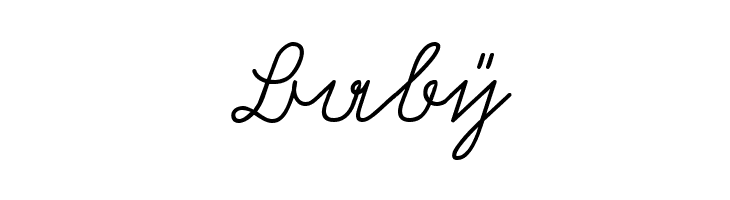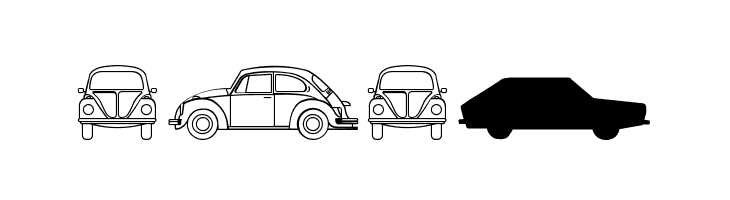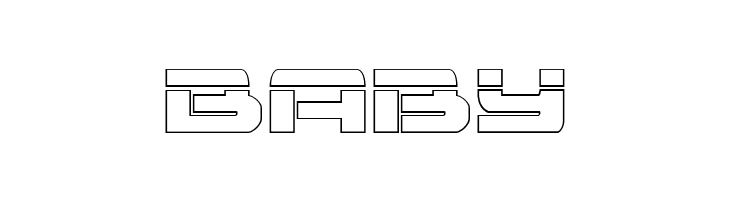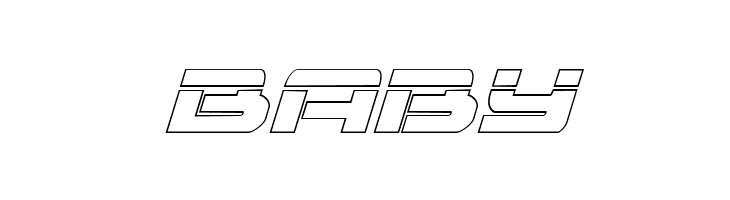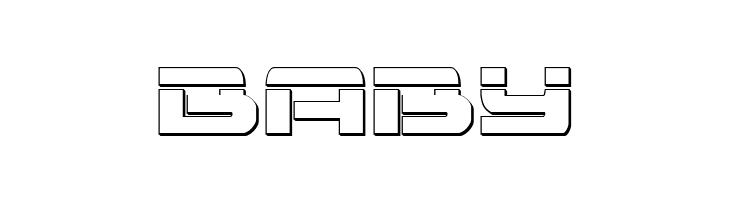
• Volk Redis Bold
A bold, expressive script font with flowing, interconnected letters.
• Volk Redis Italic
A flowing and elegant script font with interconnected cursive letterforms.
• Volk Redis Italic
A flowing, cursive script with a handwritten, italicized style.
• Volkswagen
A collection of Volkswagen vehicle silhouettes representing different models.
• Voluptate_demo
An elegant, flowing script font with intricate, interconnected letterforms.
• Volutes
An elegant script font with intricate swirls and flourishes.
• Vorpal 3D Italic
A futuristic, 3D italic font with outlined, geometric characters.
• Vorpal 3D Regular
A futuristic, geometric font with a 3D, outlined design.
• Vorpal Academy Italic
A bold, italic, futuristic font with geometric shapes and a double-layered outline.
• Vorpal Academy Regular
A bold, futuristic font with geometric shapes and strong visual impact.
• Vorpal Bold
A bold, futuristic font with geometric and angular shapes.
• Vorpal Bold Italic
• Vorpal Condensed
A bold, futuristic, and condensed font with geometric and angular characters.
• Vorpal Condensed Italic
A futuristic, condensed italic font with bold, geometric shapes.
• Vorpal Expanded
A futuristic, geometric font with bold, angular characters and an expanded width.
• Vorpal Expanded Italic
A futuristic, italicized font with angular lines and expanded width for a bold, modern look.
• Vorpal Italic
A bold, futuristic italic font with sharp, angular lines and a dynamic style.
• Vorpal Leftalic
A bold, futuristic font with geometric angles and a dynamic slant.
• Vorpal Outline Italic
A futuristic, geometric outline font with an italic slant and sharp angles.
• Vorpal Outline Regular
A futuristic, geometric outline font with a modern, digital aesthetic.
• Vorpal Regular
A bold, futuristic font with geometric and angular letterforms.
• Vortex Regular